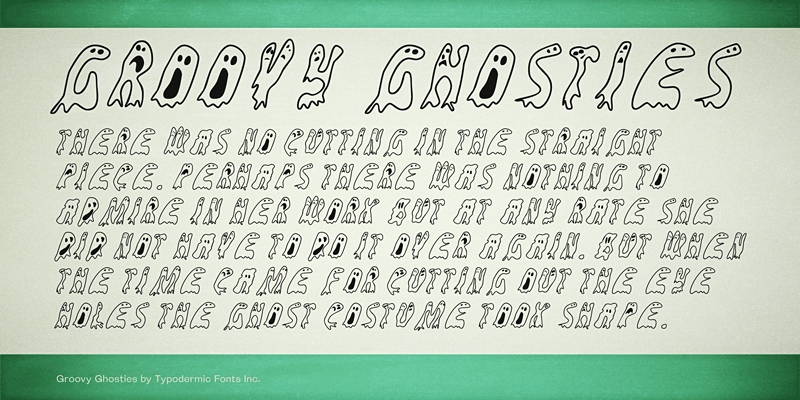
Groovy Ghosties is an alphabet made of incorporeal beings from beyond the grave. This font includes a license that allows free commercial use: sometimes referred to as a desktop license. This allows you to install the font on a computer and use it to create posters, web graphics, game graphics, t-shirts, videos, signs, logos and more. Read the license agreement for details. If you'd like to embed this font in an app, ebook, on the web or anything that's not covered by the desktop license agreement, visit the link below. You'll find distributors who offer different types of licenses or you can contact me for help. http://typodermicfonts.com/groovy-ghosties/ |